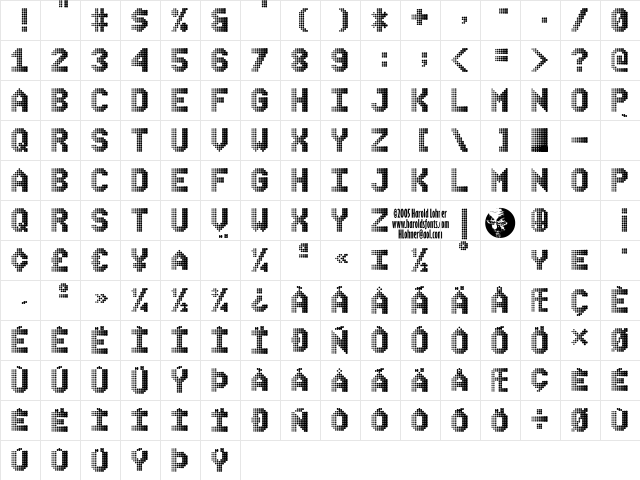
ChaserRight Regular
Design Context for ChaserRight Typeface
ChaserRight is a composed and adaptable typeface that performs quietly and consistently across a wide range of design contexts.